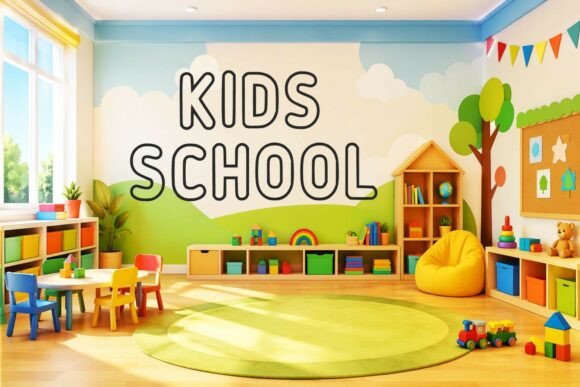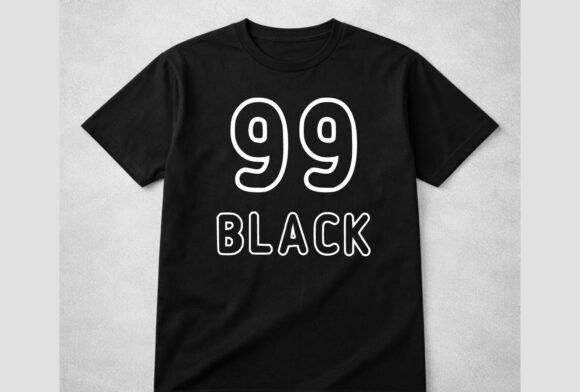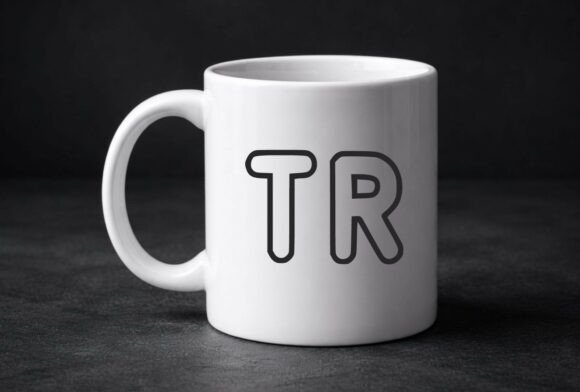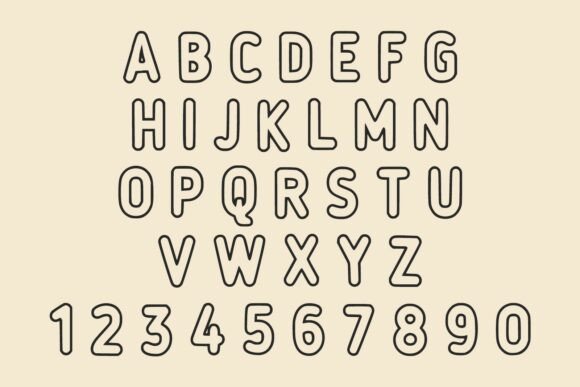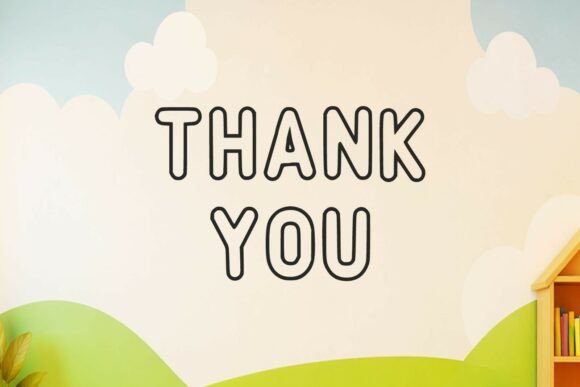
The Ultimate Guide to Comic Outline Font: Adding a Playful Touch to Your Designs
I’ll never forget the time I was working on a project for a kids’ educational app, and I was struggling to find the perfect font. The client wanted something fun, playful, and engaging, but also easy to read. After hours of searching, I stumbled upon Comic Outline, and it was love at first sight! 💕 In this article, I’ll share my experience with this amazing font, and provide you with a comprehensive guide on how to use it in your designs.
What is Comic Outline Font?
Comic Outline is a fun and playful display font featuring a clean outline style with rounded shapes. Its friendly and simple look makes it perfect for kids’ projects, comic designs, educational materials, posters, stickers, and creative branding. With Comic Outline, you can add a cheerful and modern touch to your headlines and titles while keeping a light, cute, and approachable feel that works great for playful and creative designs.
- ✅ Unique and playful outline style that sets it apart from other fonts
- ✅ Clean and simple design that’s easy to read
- ✅ Perfect for kids’ projects, educational materials, and creative branding
- ✅ Works great for headlines and titles, but also suitable for body text
- 🤔 Limited character set, may not be suitable for complex or multilingual designs
- ⚠️ May not work well with very small font sizes or low-resolution images
Comic Outline was designed with the goal of creating a fun and playful font that’s perfect for kids’ projects and educational materials. The designer wanted to create a font that’s both clean and simple, yet engaging and modern. With its unique outline style and rounded shapes, Comic Outline is sure to bring a cheerful touch to your designs.
Q: Can I use Comic Outline for body text?
A: While Comic Outline is primarily designed for headlines and titles, it can also be used for body text in certain contexts. However, keep in mind that it may not be suitable for long blocks of text or small font sizes.
Q: Does Comic Outline support OpenType features?
A: Yes, Comic Outline supports OpenType features, including glyphs and stylistic alternates. You can access these features in design apps that support OpenType, such as Adobe Photoshop and Illustrator.